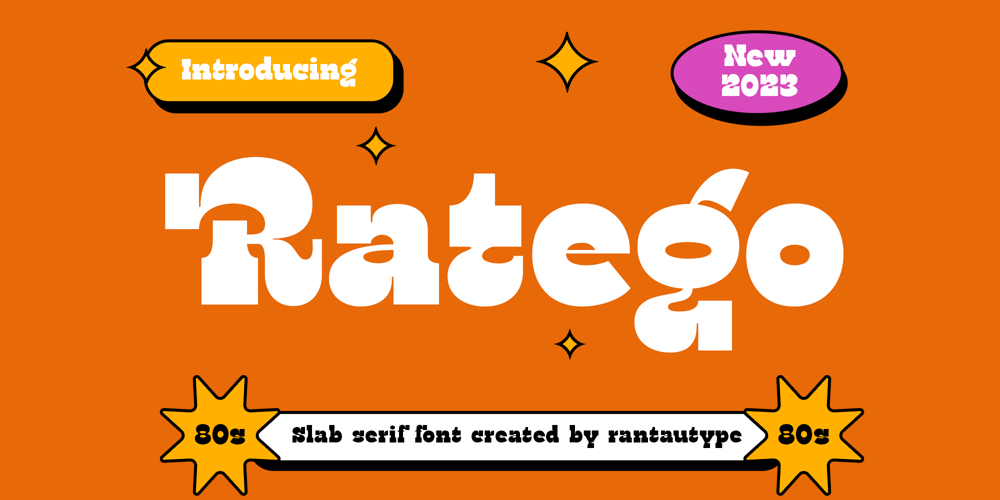
Ratego
Ratego font
Ratego Font Family was designed by Yudi Pratama Chandra and published by RantauType. Ratego contains 2 styles and family package options. Hi Ladies and Gentleman !Ratego is a vintage font that bold curve make it look Unique, fungky, fun, modern, and versatile serif Font. Come with more alternate and ligature you can mix and max to create a more stunning display.Ratego separate in reguler and italic, is a beautiful choice for any creative endeavor, creating fun, modern, chic, lifestyle design such as logos, title, cover, branding, display and magazine, and more. Now you have can choice ratego to make your branding.Features: Standar character A-Z and a-z Numberial and Functional Alternate and Ligature Works on PC & Mac Simple installations Accessible in Adobe Illustrator, Adobe Photoshop, Adobe InDesign, even work on Microsoft Word. Fonts include Multilingual Support for: Afrikaans, Albanian, Asu, Basque, Bemba, Bena, Breton, Chiga, Cornish, Dutch, English, Estonian, Filipino, Finnish, Friulian, Galician, Gusii, Indonesian, Irish, Italian, Kabuverdianu, Kalenjin, Kinyarwanda, Luo, Luxembourgish, Luyia, Machame, Makhuwa-Meetto, Makonde, Malagasy, Manx, Morisyen, North, Ndebele, Nyankole, Oromo, Portuguese, Quechua, Romansh, Rombo, Rundi, Rwa, Samburu, Sango, Sangu, Scottish, Gaelic, Sena, Shambala, Shona, Soga, Somali, Spanish, Swahili, Swedish, Swiss, German.Thank you for your purchase!Hope you enjoy with our font!